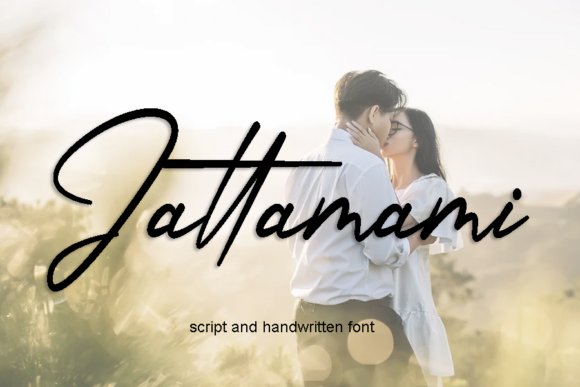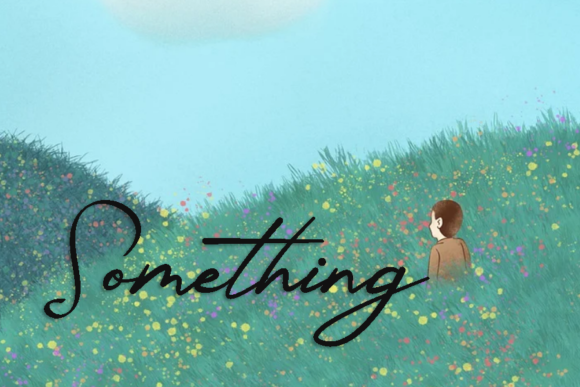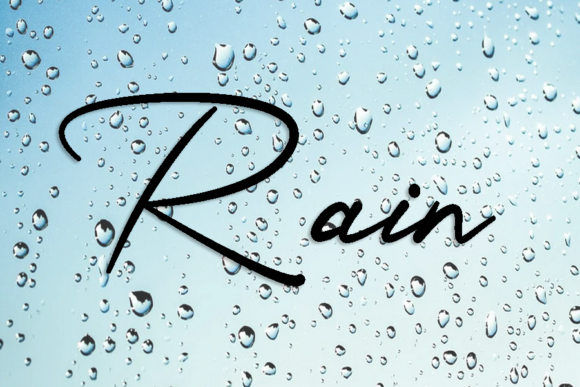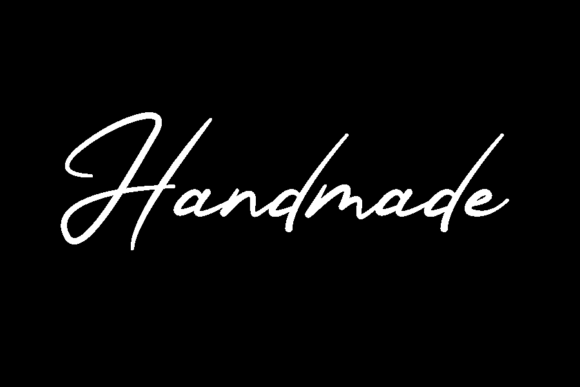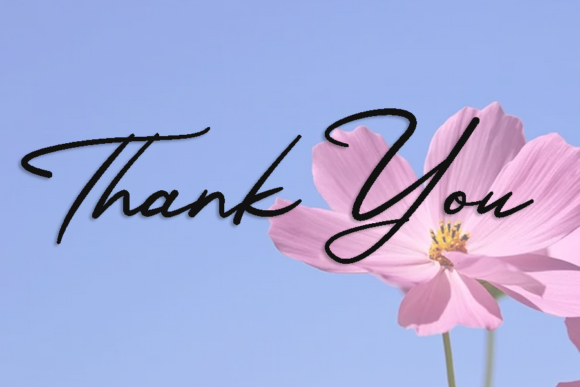
Unleashing Your Creativity with Jattamami Font
There’s nothing quite like the feeling of staring at a blank page, waiting for inspiration to strike. The cursor blinks, and your mind starts racing with ideas, fonts, and colors. It’s in these moments of creative uncertainty that the perfect font can be the difference between a decent project and a truly exceptional one. That’s where Jattamami Font comes in – a stylish handwritten font that’s about to take your designs to the next level.
Designed to evoke the elegance of classic calligraphy, Jattamami Font is the perfect blend of modern flair and timeless sophistication. Whether you’re working on a logo, a wedding invitation, or a social media campaign, this versatile font is sure to bring a touch of sophistication and personality to your projects. With its balanced and varied style, Jattamami Font is an invaluable asset for designers looking to elevate their work and stand out from the crowd.
Jattamami Font Key Features
- Font Family: Jattamami
- Unique Characteristic: Distinctive, modern script style with a unique blend of traditional and contemporary elements
Jattamami Font Review
As a designer, I’ve had the chance to work with the Jattamami font, and I must say it’s a unique addition to any project. Here are some of the things that stand out: ✨
- Its distinctive look and feel immediately capture attention and evoke a sense of energy.
- The font is highly legible, even at smaller sizes, making it perfect for headings and titles.
- The Jattamami font is incredibly versatile and can be used in a wide range of design projects, from branding to digital media.
- The font may not be the best choice for body text, as it can be a bit overwhelming for longer blocks of text.
- The Jattamami font may not be suitable for all audiences, as its bold and playful nature may not resonate with more conservative or traditional design preferences.
Overall, I think the Jattamami font is a great addition to any designer’s toolkit. While it may not be perfect for every project, it’s certainly a bold and eye-catching choice that can add a lot of character to a design. With careful use and consideration, the Jattamami font can be a real showstopper.
The Jattamami font is perfect for creating eye-catching headings, titles, and logos. It’s also great for adding a unique touch to your social media graphics